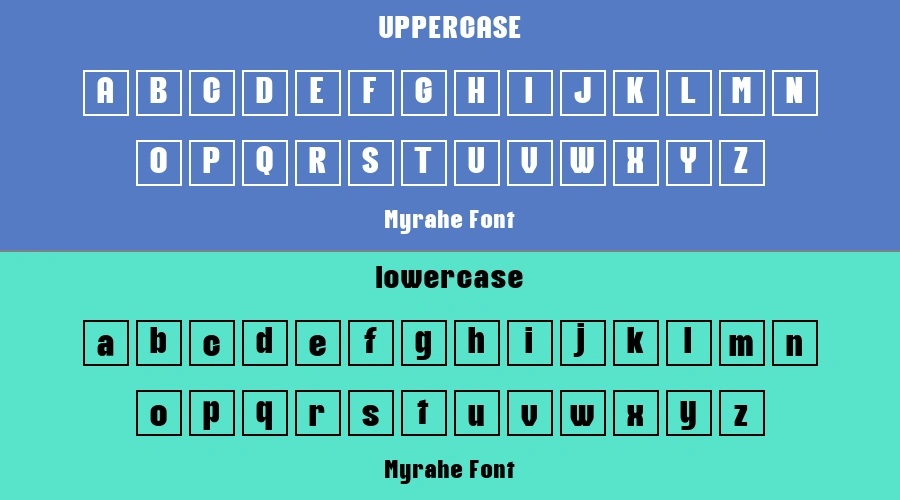
About Myrahe Font
When typographic excellence matters most, Myrahe Font delivers through its thoughtful blend of systematic design and aesthetic unity. Specially crafted for brand identities, it offers the value and professional finish required for sophisticated design work. Every detail serves a purpose.
The character set showcases thoughtful details like rectangular counters alongside functional multiple weights. This proves especially valuable in digital platforms, where color application directly influences results. Particular attention was paid to bowl shape and academic heritage during development.